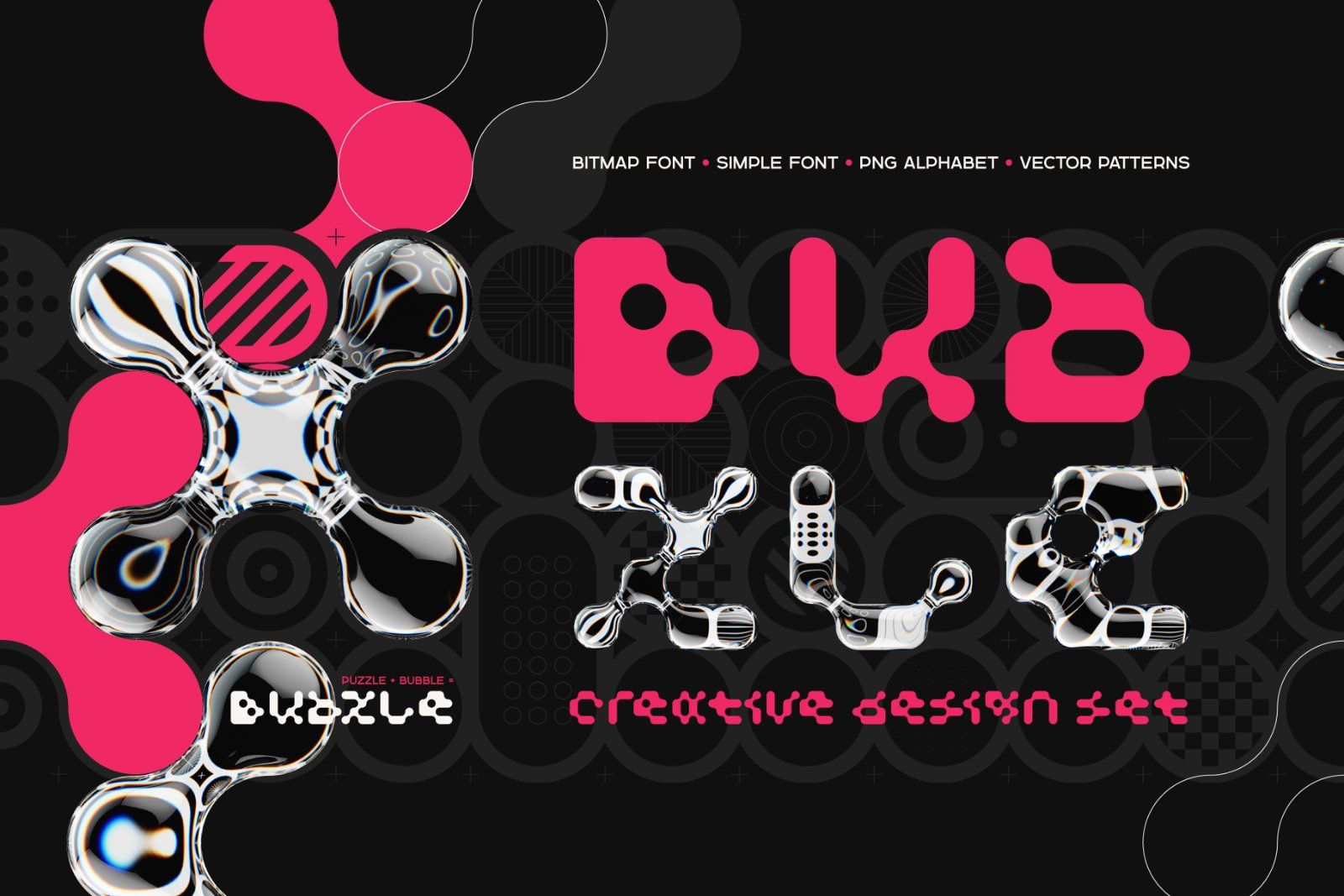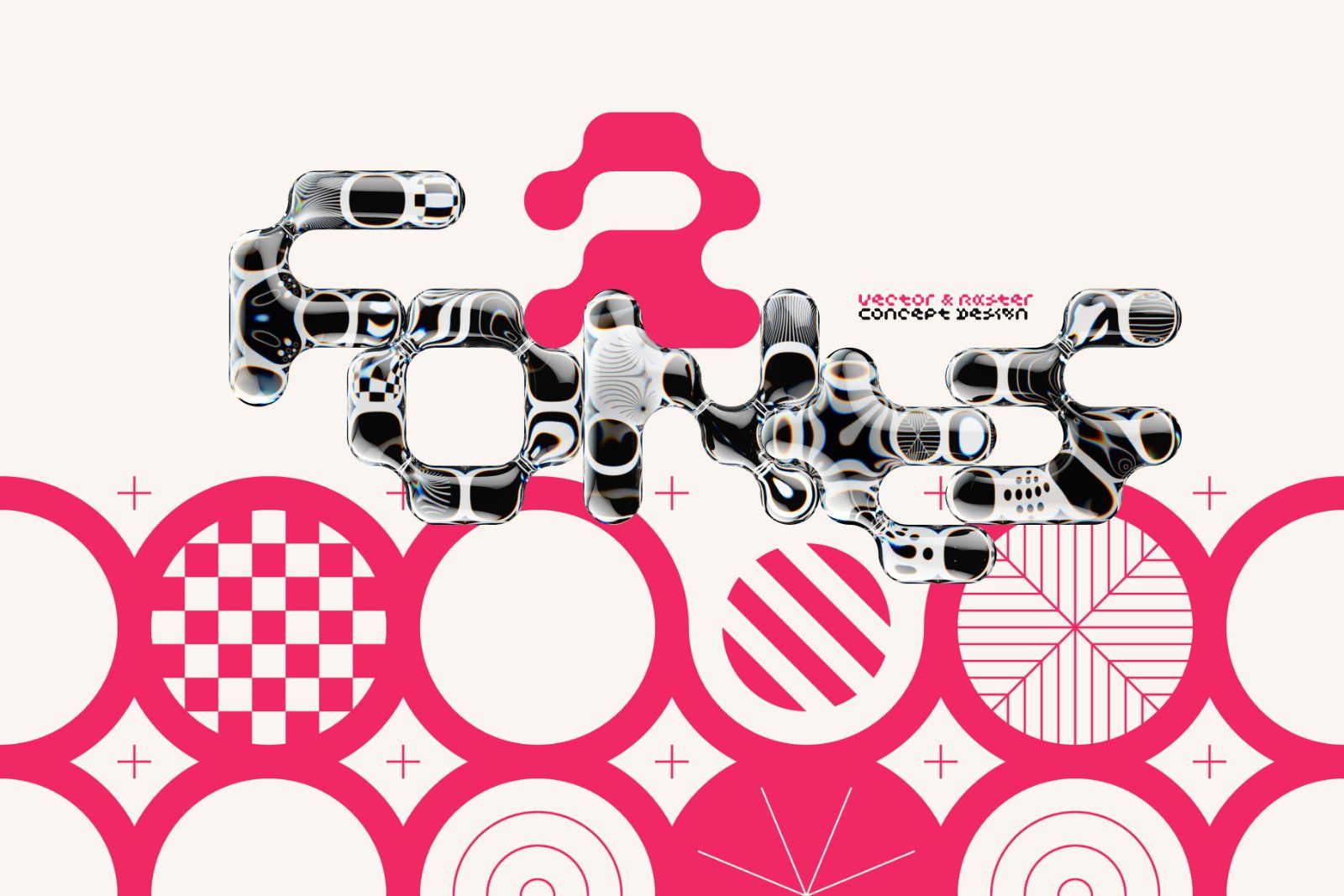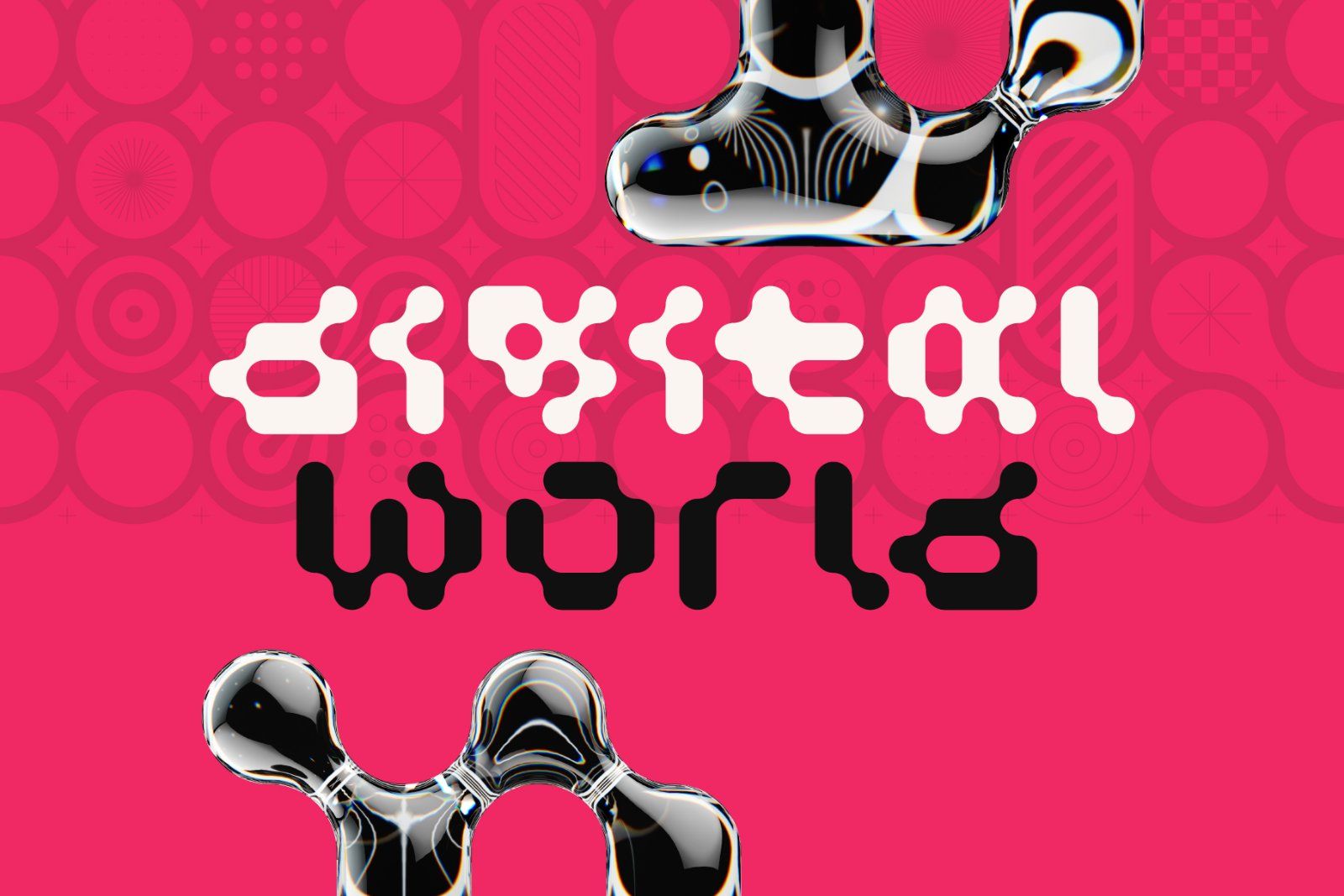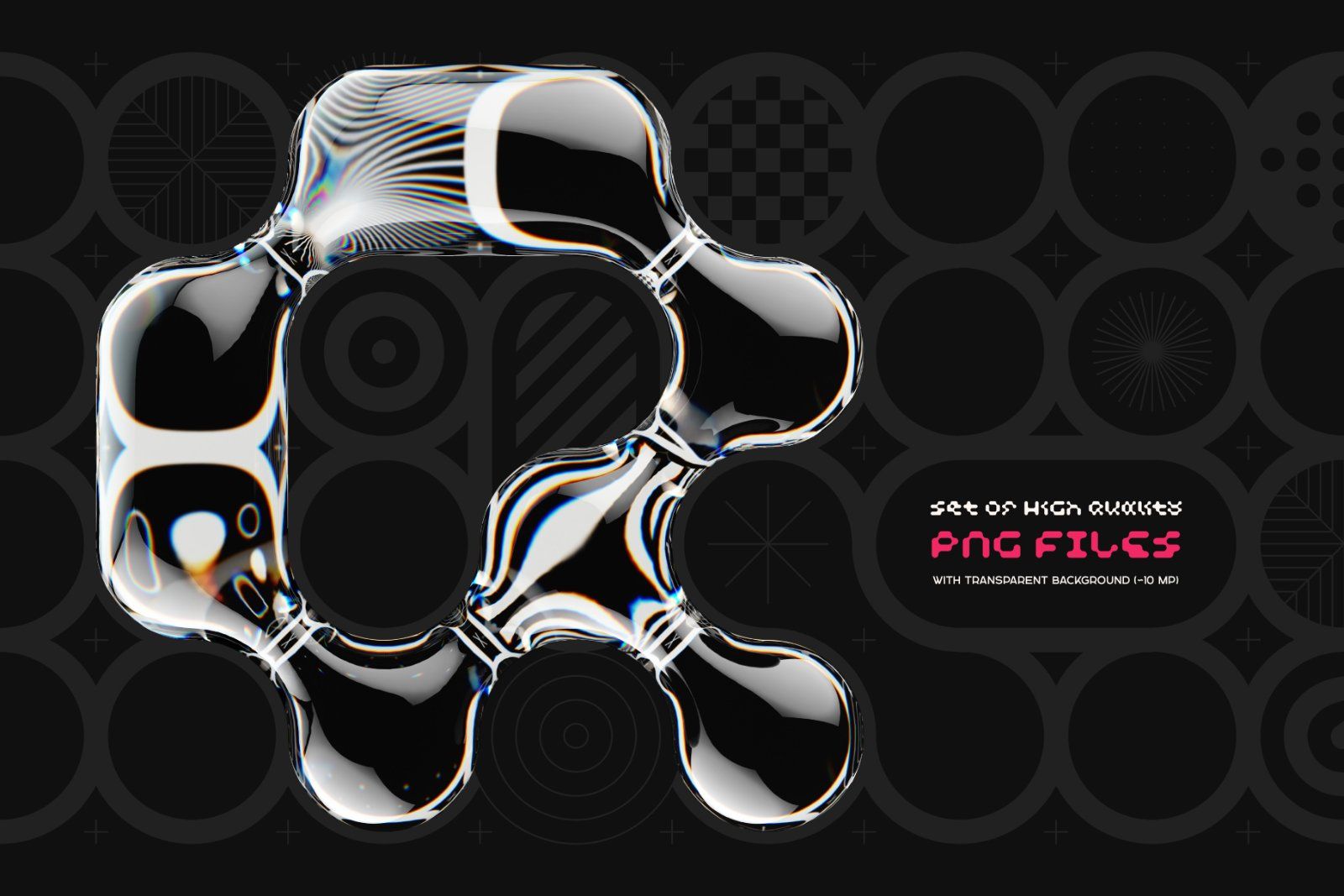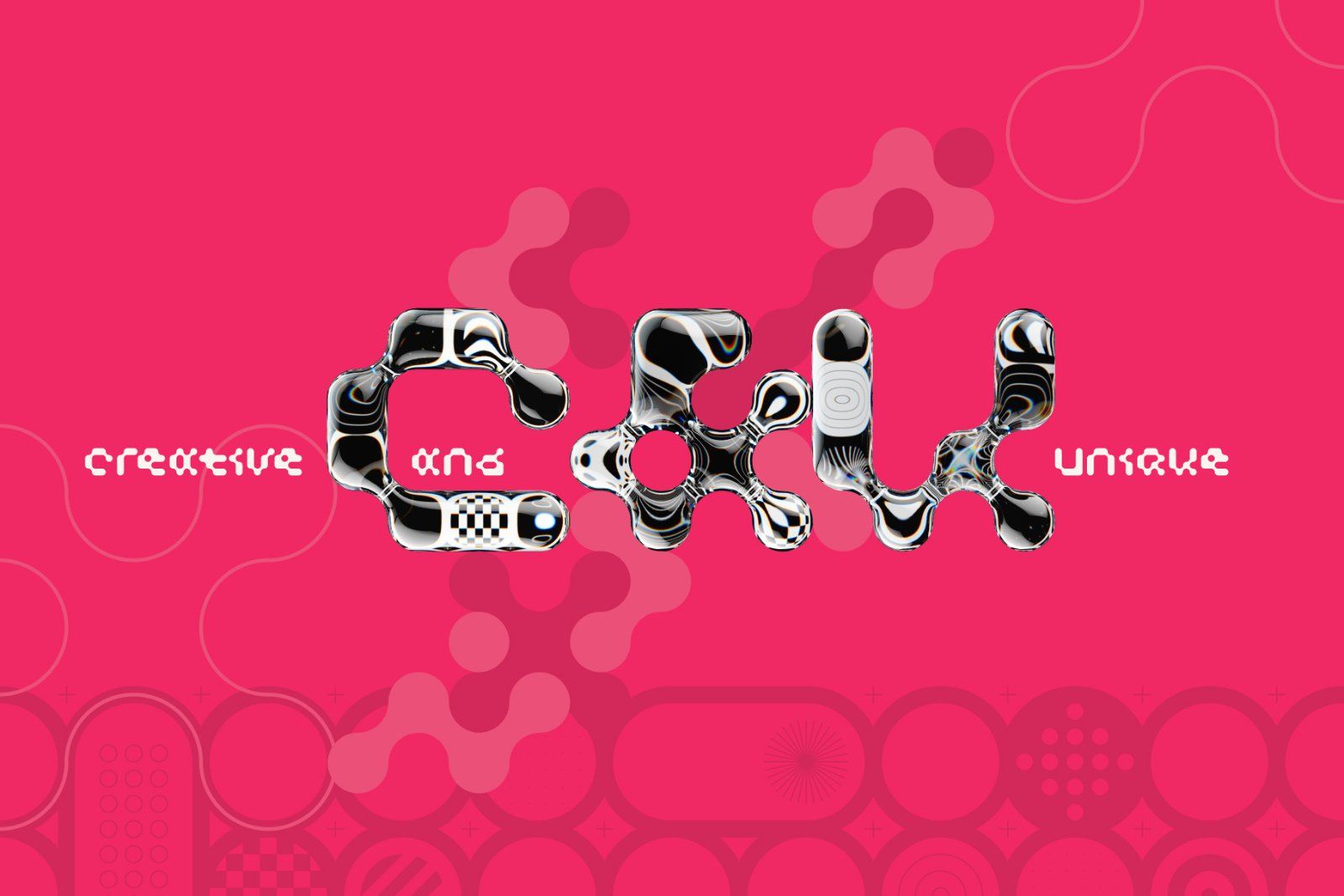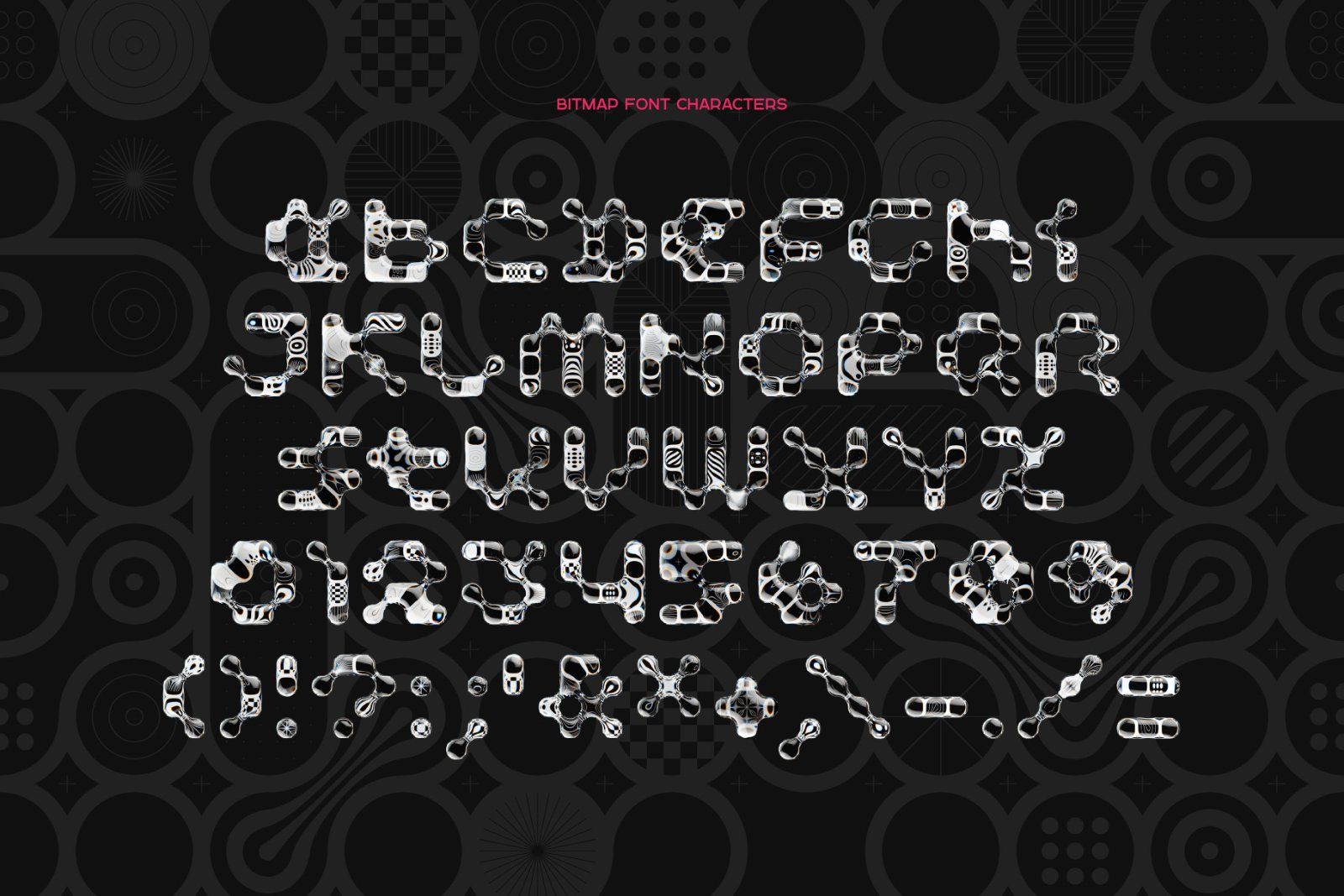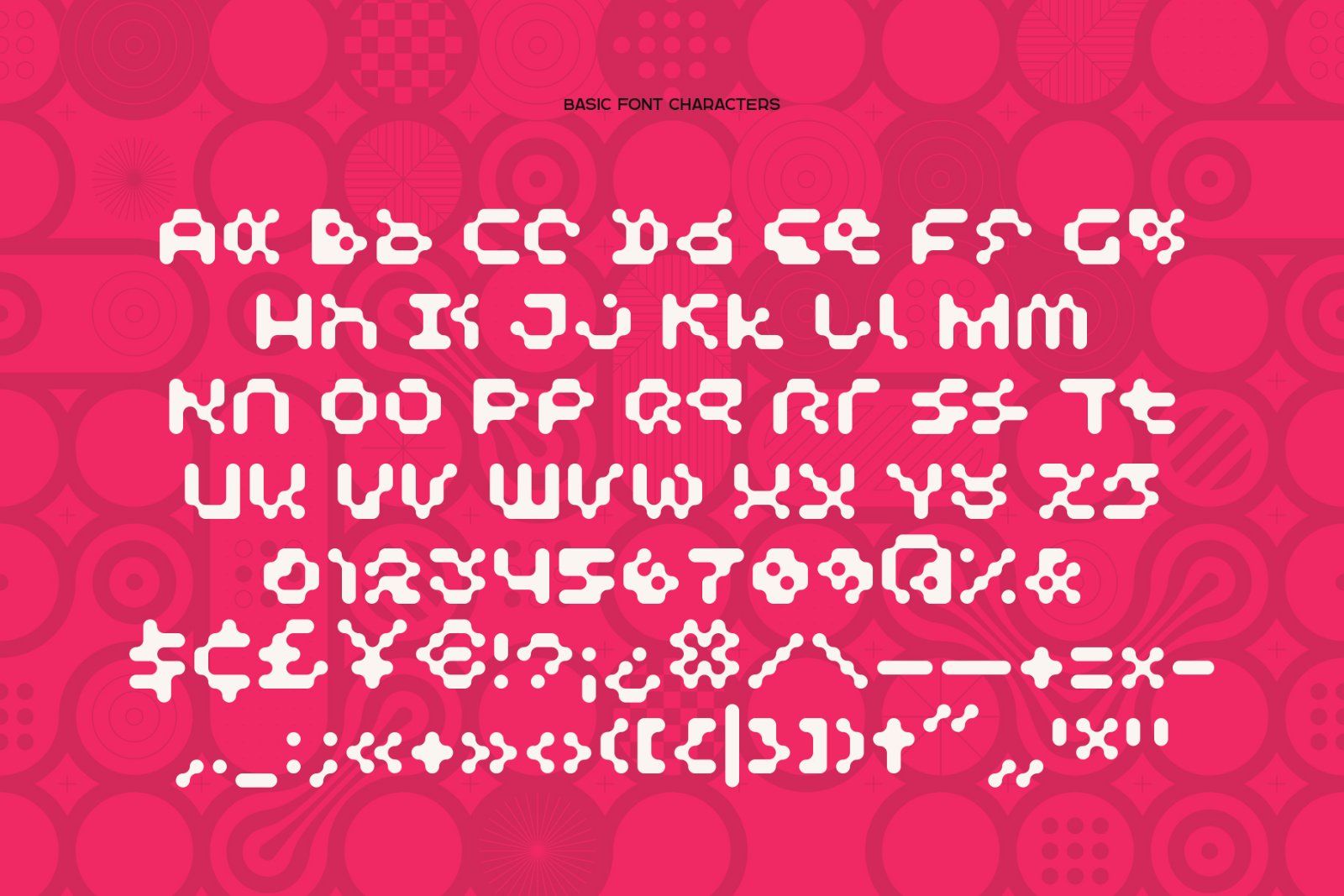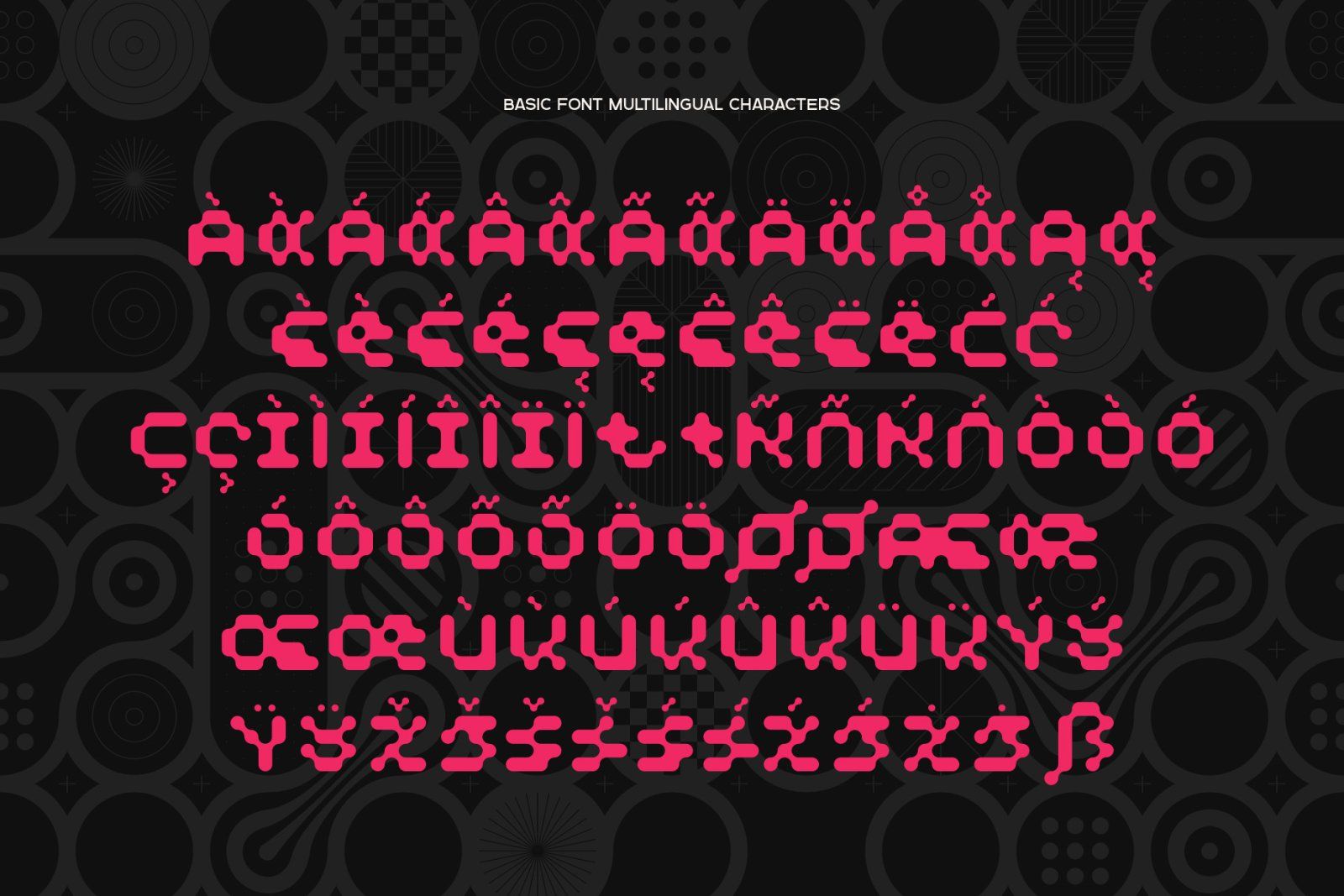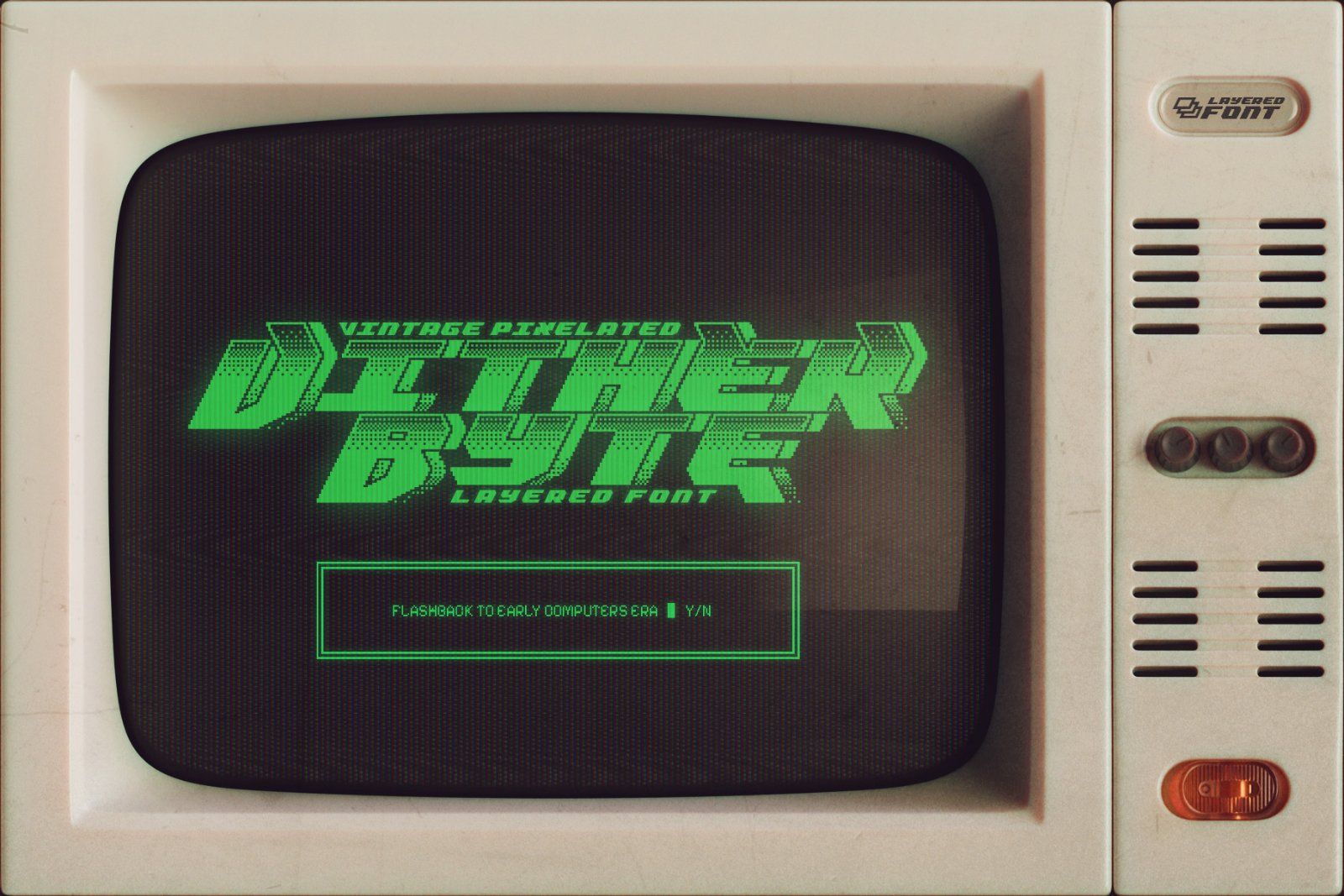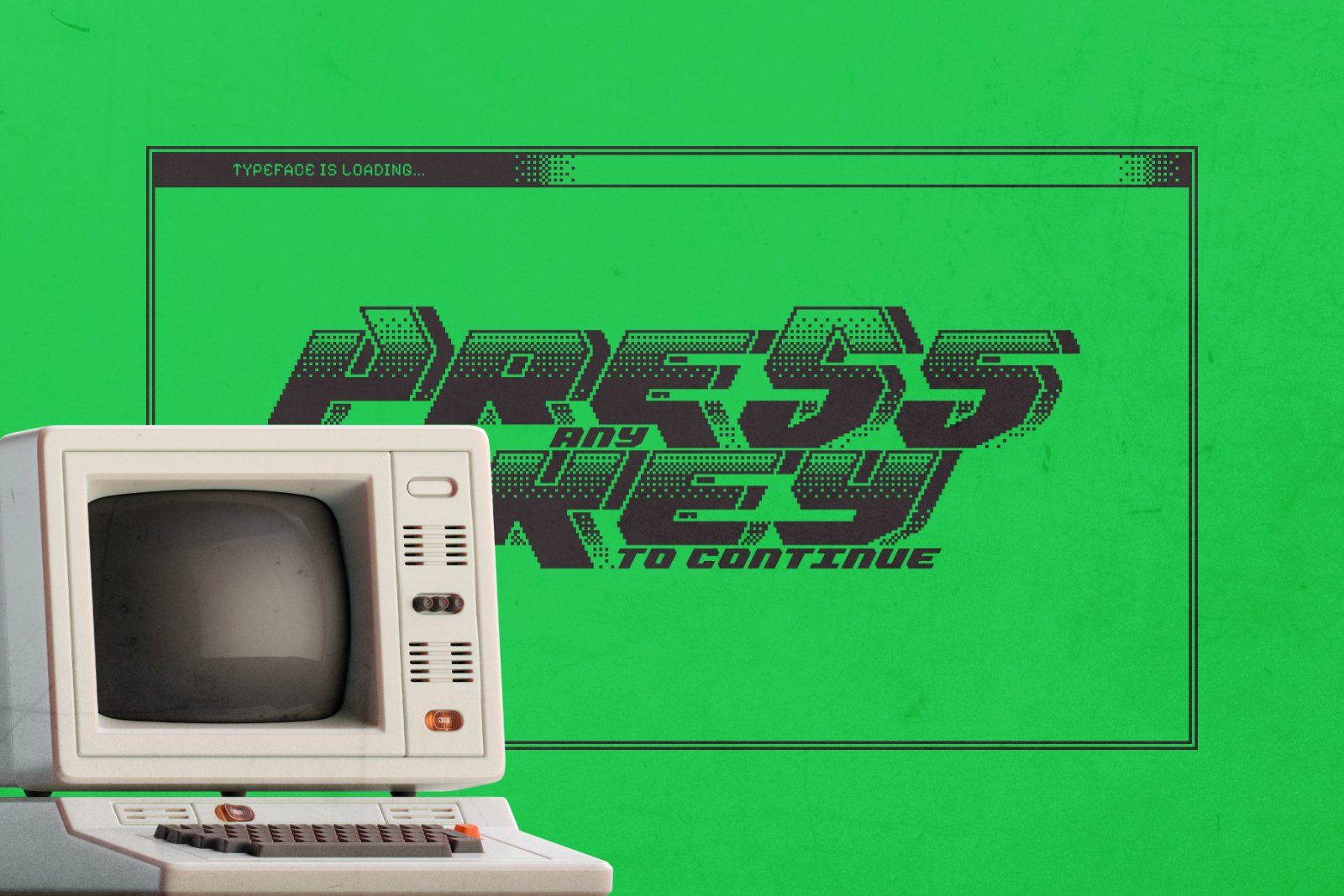
Introducing a Pixel Fonts Bundle! It is a collection of vintage-style typefaces that refer to an early computer era with nostalgic vibes. The full bundle includes 6 fonts with 16 typefaces in total. This set is perfect for Y2K-style designs with a creative, modern take on retro technology.
• Bubzle
• Dither Byte
• Pixcraft
• Pixel Demon
• Pixelota
• Retroid